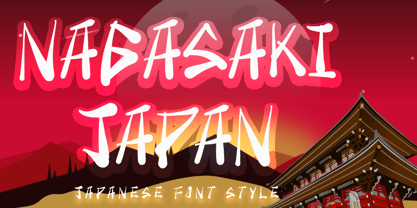
Nagasaki Japan
by Yoga Letter
The Nagasaki Japan Font Family was designed by Isroni Yoga Prasetya and published by Yoga Letter. Nagasaki Japan contains 1 styles. More about this family
"Nagasaki Japan" is an elegant Japanese style font. It comes with capital letters, lowercase letters, numbers, punctuation, and multilingual support. It is perfect for business branding, Japanese restaurants, banners, branding, stickers, posters, prints, restaurant logos, movie titles, and more.
Designers: Isroni Yoga Prasetya
Foundry: Yoga Letter